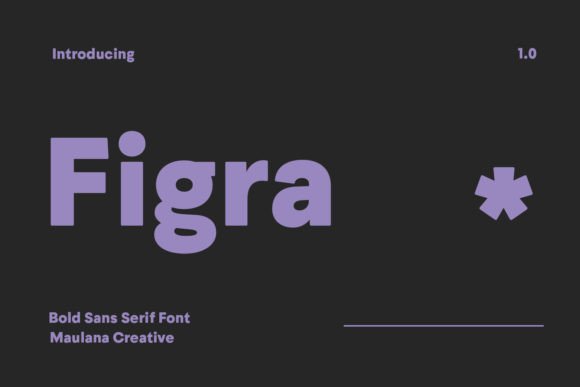
Figra: A Futuristic Sans Serif for Editorial Impact
It was a quiet Tuesday afternoon—coffee cooling, layout files open—and I was finalizing the cover for a new digital magazine issue focused on sustainable living. The content was thoughtful, grounded in research and real voices, but the current headline font felt too safe, too familiar. I needed something that whispered *forward-looking* without shouting. That’s when I opened Figra.
Figra is a premium display font, unmistakably sans serif in structure yet deeply expressive in character. Its lines are taut and precise, with subtle neon-inspired contrast—not literal glow, but an optical brightness built into the stroke modulation. There’s a quiet confidence in its rhythm: letters breathe evenly, spacing feels intentional rather than tight or loose, and even at smaller display sizes (24–36pt), its clarity holds. It doesn’t try to be friendly or nostalgic. It’s calm, commanding, and quietly futuristic—like a well-designed interface you trust before you even interact with it.
A Font That Anchors Editorial Mood
In that magazine cover test, Figra instantly shifted the tone. Paired with a restrained serif body text (I used a warm, slightly organic Garamond revival), the title didn’t compete—it elevated. The contrast wasn’t loud; it was compositional. Figra became the anchor point, the editorial compass. Readers scanning the issue online or flipping through a PDF preview immediately sensed intentionality—not just “this looks nice,” but “this publication has a voice, and it knows where it’s going.”
I’ve since used Figra across several real projects: a coaching workbook’s chapter openers, a printable seasonal planner’s section headers, and a newsletter’s featured quote graphics. In each case, it performed consistently—not as decoration, but as structural punctuation. It signals hierarchy without needing bold or all-caps treatment. A single line of Figra at 48pt carries more weight than three lines of a heavier, less considered display face.
Where Figra Shines—and Where It Steps Back
Let’s be clear: Figra isn’t meant for body copy. Its personality is too distinct, its letterforms too sculpted for extended reading. At 14–16pt on screen or in print, subtleties begin to blur, especially in longer paragraphs or dense captions. It’s not a workhorse—it’s a spotlight. And that’s exactly its strength.
Use it where attention matters most: blog headers, ebook titles, digital magazine covers, worksheet titles, course module banners, and pull quotes that need visual resonance. In a recipe ebook, Figra works beautifully for dish names—“Smoked Harissa Chickpeas”—giving each title presence without overwhelming the ingredient list beneath. In a wedding guide, it lends elegance and modernity to section breaks like “The First Look” or “Vows & Values,” supporting emotional pacing without sentimentality.
What surprised me most was how well it adapted across formats. Exported to PDF, it renders crisply—even in CMYK print proofs. On mobile, its generous x-height and open counters kept legibility intact at headline sizes. And unlike some ultra-thin or high-contrast display fonts, Figra avoids fragile rendering on lower-DPI screens or older email clients when used in SVG or embedded web font contexts.
Thoughtful Pairing, Not Just Contrast
Part of Figra’s editorial usefulness lies in how gracefully it pairs. Because it’s a sans serif with strong geometry—but not cold minimalism—it harmonizes with both classic serifs and humanist sans serifs. For long-form digital reading, I often pair it with a warm, readable serif (think: a sturdy Adobe Caslon or a contemporary Tiempos Text). For navigation menus or caption labels in a digital magazine, a neutral, highly legible sans serif—like Inter or Source Sans Pro—creates clean functional contrast without visual noise.
What matters most is intention. Figra doesn’t ask to be paired with another expressive font. It asks for space—and for companionship that listens. When I tested it alongside a delicate script font for a lifestyle blog’s “Quote of the Week” graphic, the result felt unbalanced. But with a modest, well-spaced serif in the quote body? Instant cohesion. The pairing didn’t shout—it supported.
Practical Considerations Before You Commit
Before adding Figra to your design system, take a moment to review what’s included. Does the family offer multiple weights (light, regular, bold)? Are there stylistic alternates or discretionary ligatures—especially useful for logo design or custom wordmarks? Check multilingual support if your audience spans languages beyond English; some display fonts skimp on diacritics or extended Latin characters.
Whether you’re refining a blog’s visual voice, designing a course workbook that balances inspiration with clarity, or crafting a digital magazine where every typographic choice must earn its place—Figra invites intention. Not flash. Not novelty. Just a well-made, future-aware sans serif that helps readers feel where they are, and where the content is taking them.